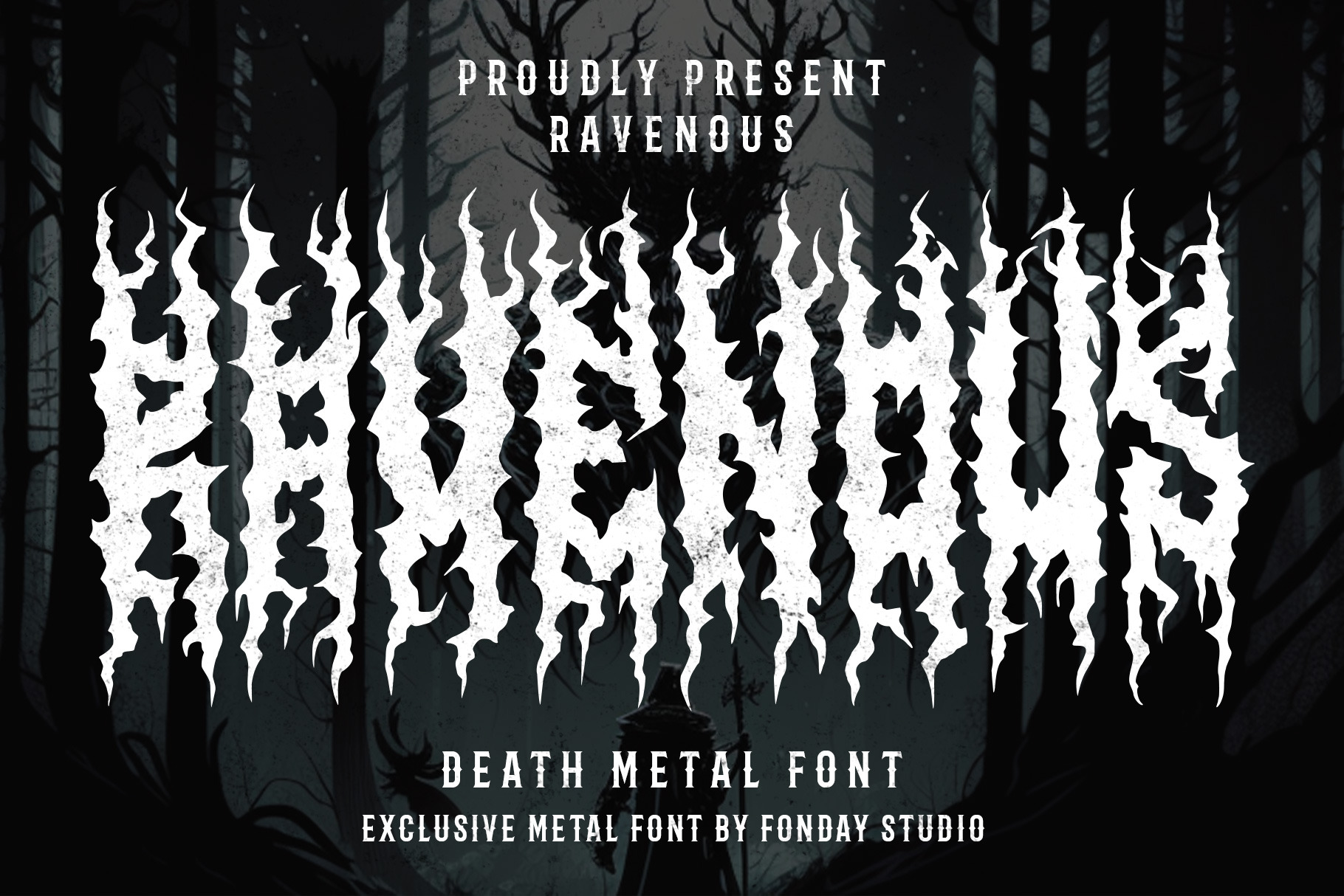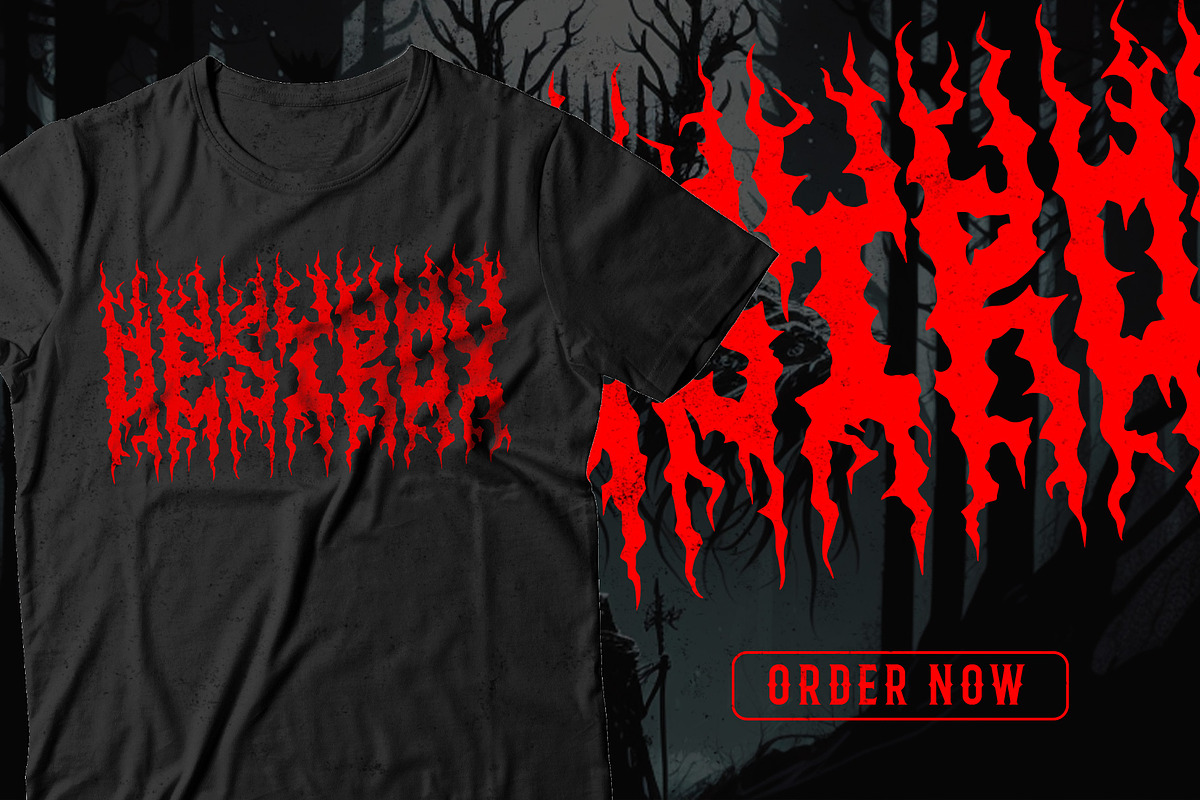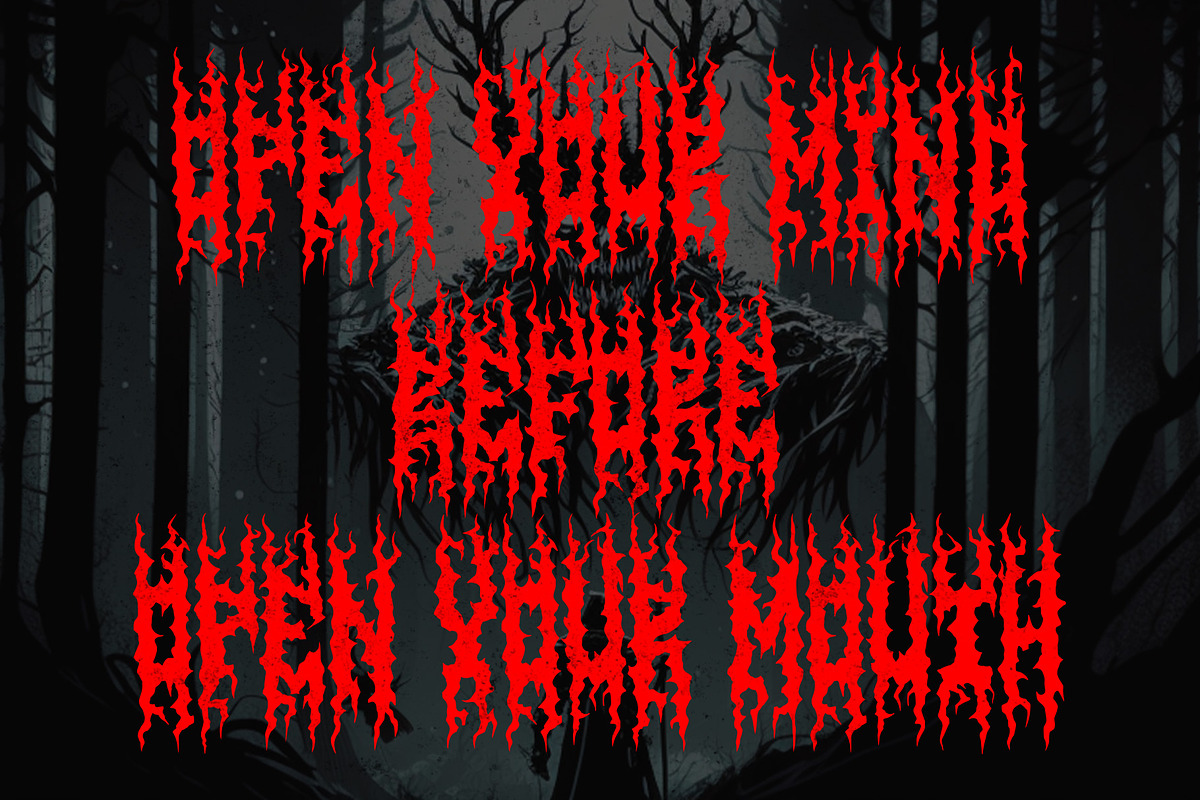
Ravenous - Death Metal Font
Introducing Ravenous, our bold and aggressive font that's perfect for capturing the raw energy of metal music. With its sharp and edgy design, Ravenous is ideal for creating designs that reflect the intensity and power of metal bands. So if you're ready to add a touch of darkness and aggression to your designs, download Ravenous today and unleash the power and energy of metal music in your designs. Get ready to rock with Ravenous!